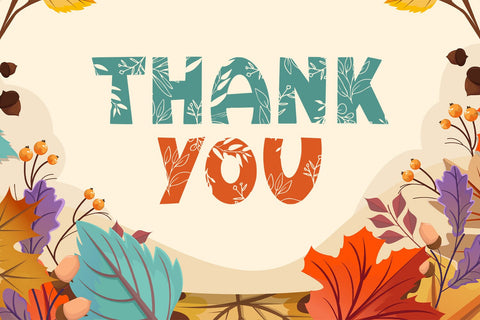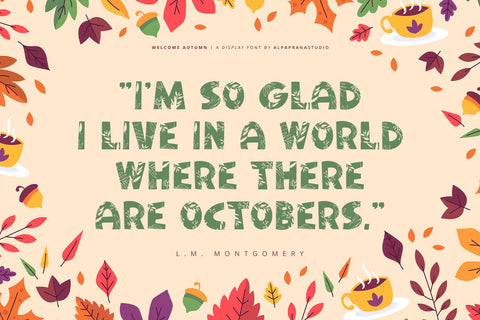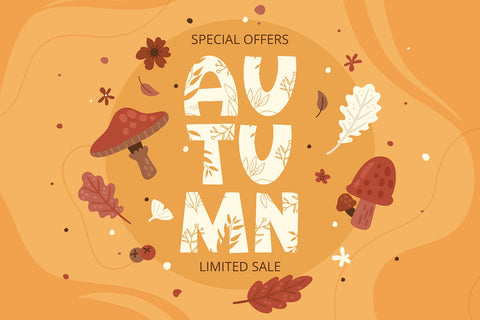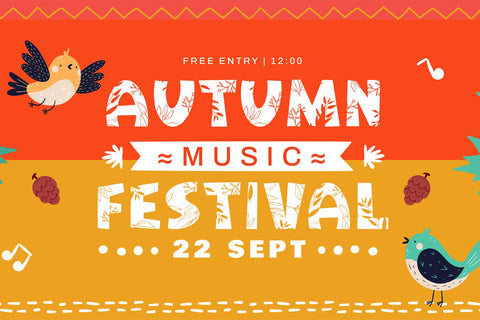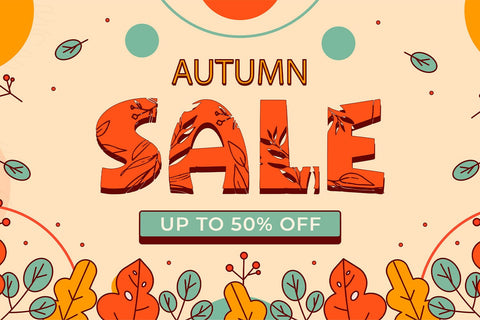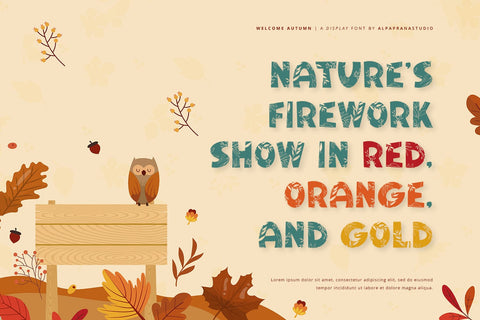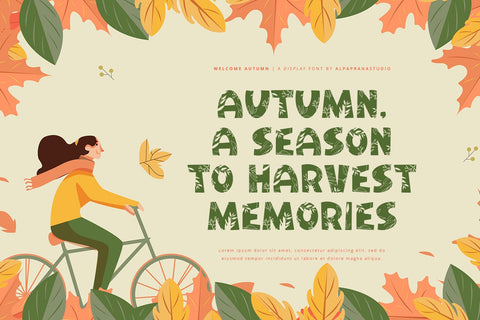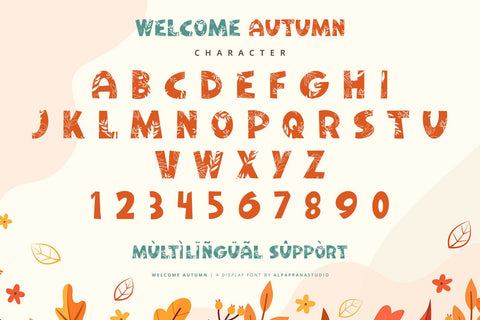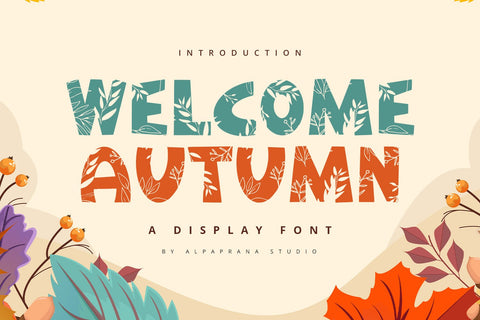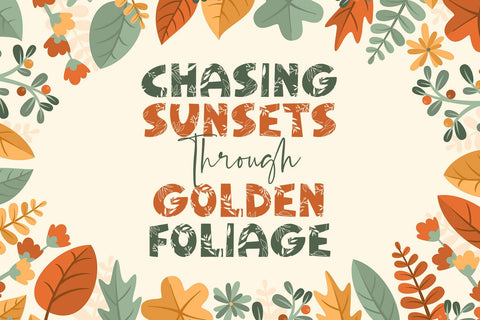
Welcome Autumn - Display Font
Welcome Autumn is a display font with modern feels. It will be perfectly used for Branding, Logo Design, Lettering, Logotype, Clothing, Poster, magazine, packaging, posters, shopping bags, t-shirts, book covers, photography, special events and other design project.